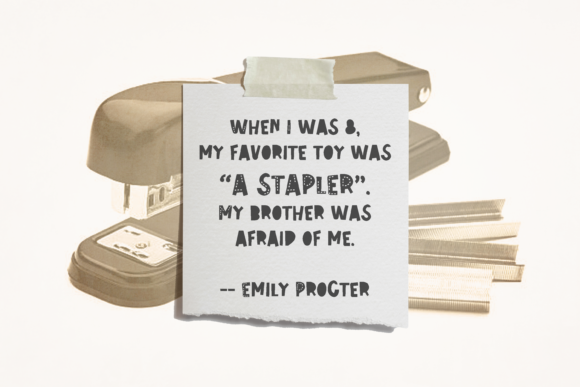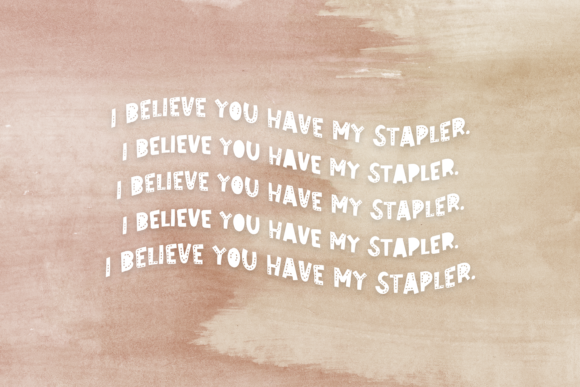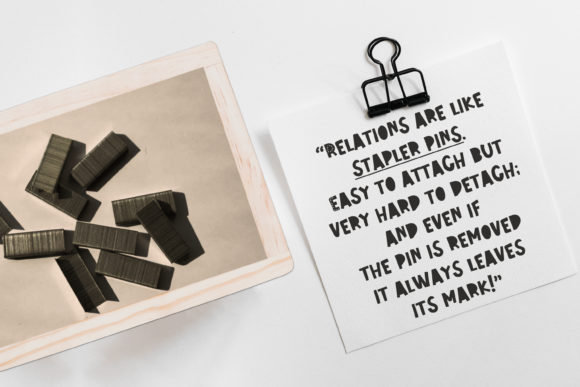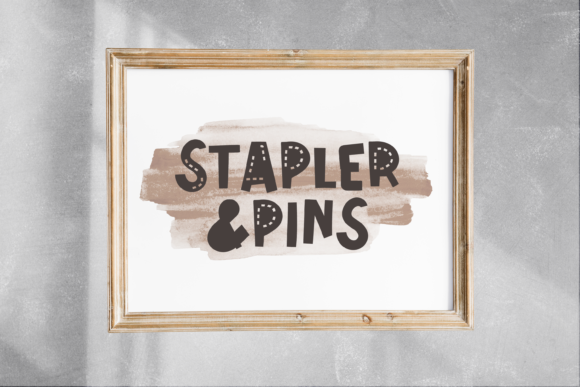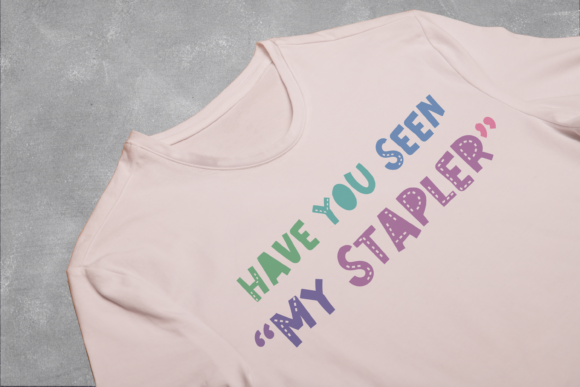
Introducing the Black Stapler Font: A Playful and Charming Display Font
Are you tired of using the same old fonts in your design projects? Look no further! The Black Stapler Font is a sweet and charming display font that’s sure to add a playful touch to any design. With its incredibly playful feel, this font is perfect for designers and crafters who want to create standout projects that capture the imagination of their audience.
The Perfect Font for Children-Themed Designs
The Black Stapler Font is particularly well-suited for children-themed designs, especially when combined with bright colors. Its playful and whimsical feel is sure to delight kids and parents alike, making it perfect for projects such as:
- Children’s books and educational materials
- Kids’ party invitations and decorations
- Toys and product packaging
- Children’s clothing and accessories
Key Features of the Black Stapler Font
So, what makes the Black Stapler Font so special? Here are just a few of its key features:
- Playful and whimsical feel: The Black Stapler Font has a unique and playful feel that’s sure to add a touch of personality to any design.
- Highly legible: Despite its playful feel, the Black Stapler Font is highly legible, making it perfect for use in a variety of design projects.
- Versatile: The Black Stapler Font can be used in a variety of design projects, from children’s books to product packaging.
- Easily customizable: The Black Stapler Font can be easily customized to fit your specific design needs.
Tips for Using the Black Stapler Font
Here are a few tips for using the Black Stapler Font in your design projects:
- Combine with bright colors: The Black Stapler Font is perfect for use with bright, bold colors. Try pairing it with colors like pink, blue, and yellow to create a fun and playful design.
- Use in combination with other fonts: The Black Stapler Font can be used in combination with other fonts to create a unique and visually interesting design.
- Experiment with different sizes and styles: Don’t be afraid to experiment with different sizes and styles of the Black Stapler Font to find the perfect look for your design project.
Why Designers and Crafters Love the Black Stapler Font
So, why do designers and crafters love the Black Stapler Font? Here are just a few reasons:
- It’s fun and playful: The Black Stapler Font is the perfect way to add a touch of fun and playfulness to any design project.
- It’s versatile: The Black Stapler Font can be used in a variety of design projects, from children’s books to product packaging.
- It’s easy to use: The Black Stapler Font is highly legible and easy to use, making it perfect for designers and crafters of all skill levels.
In conclusion, the Black Stapler Font is a sweet and charming display font that’s perfect for designers and crafters who want to add a playful touch to their design projects. With its incredibly playful feel and highly legible design, this font is sure to delight kids and parents alike. So why not give it a try and see the difference it can make in your design projects?